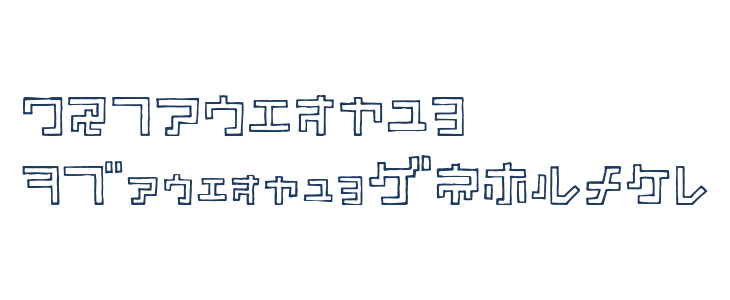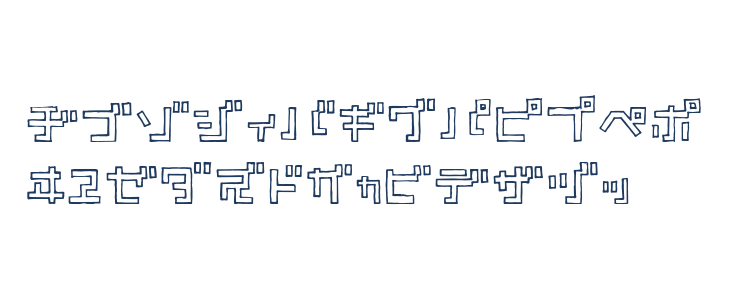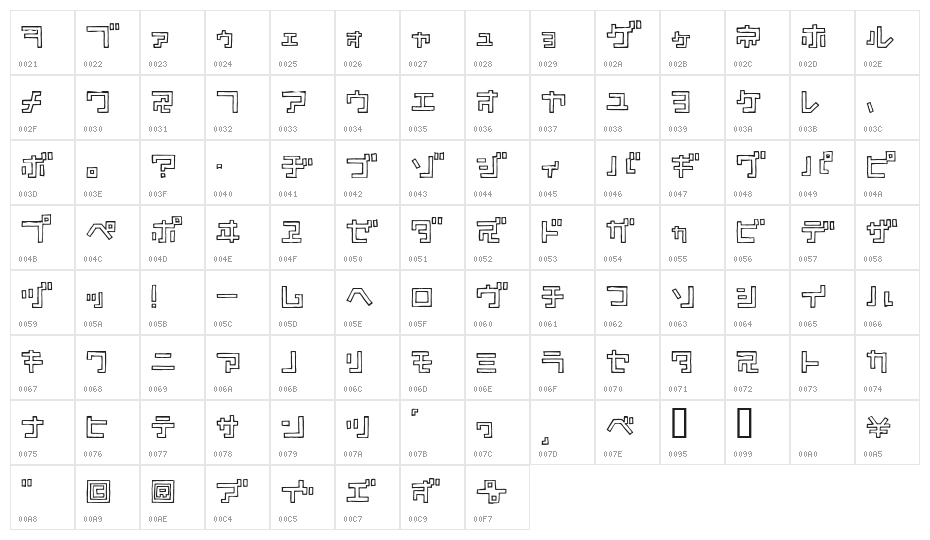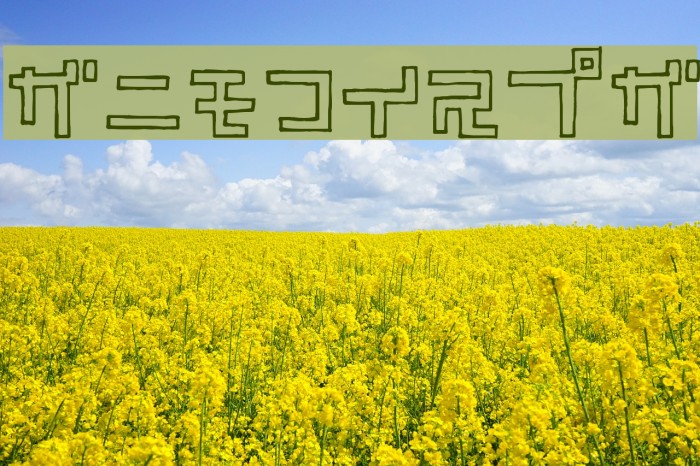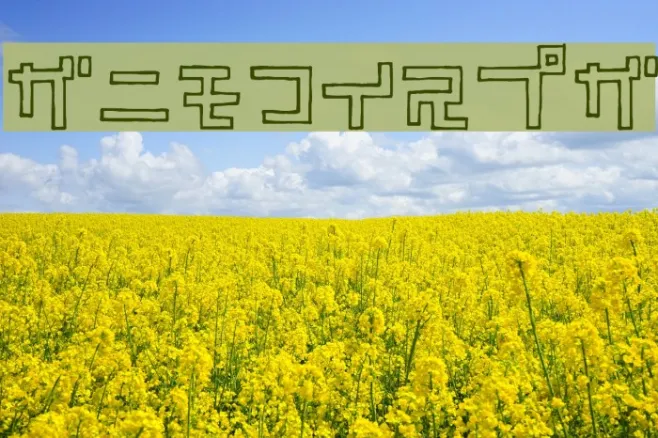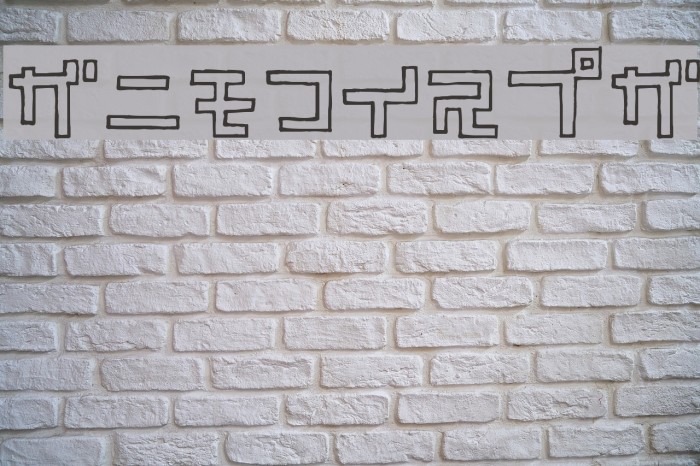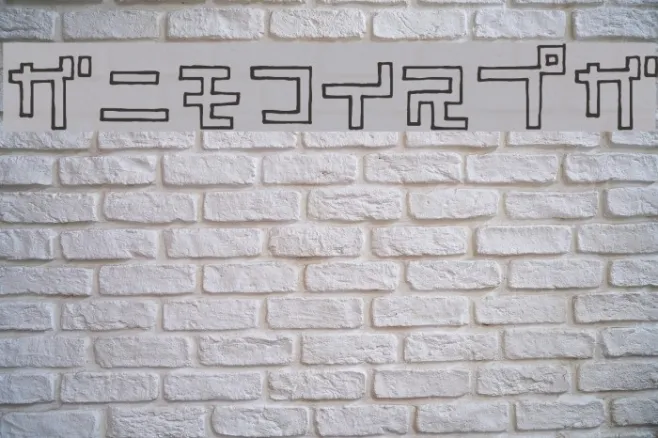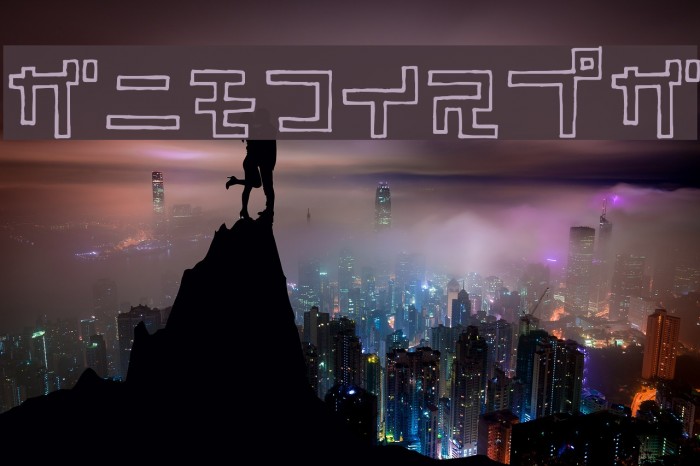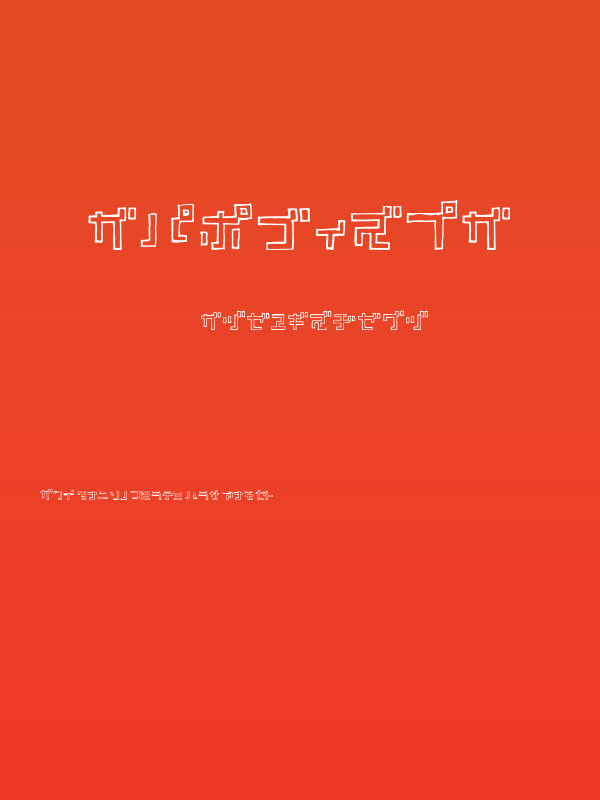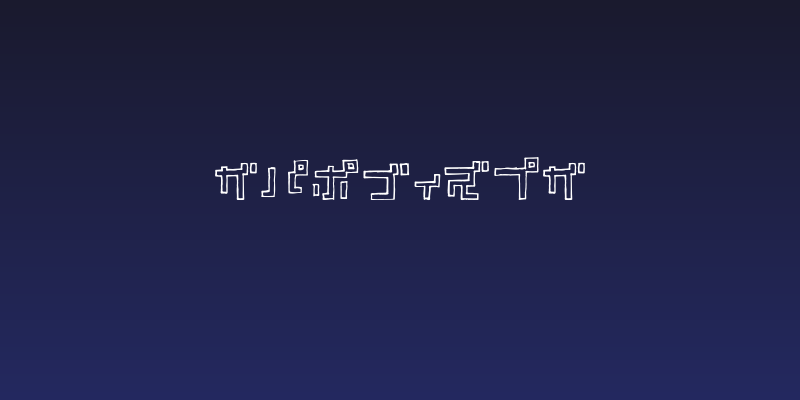
TimberKT Font
TimberKT Description
This font features a unique, geometric design with a playful and artistic flair. Each character is outlined with a bold, consistent stroke, creating a sense of uniformity while maintaining individuality in each letter's shape. The font has a hand-drawn appearance, giving it a casual and approachable feel. The characters are slightly angular, with a distinct blocky style that makes them stand out. This font is ideal for creative projects that require a touch of whimsy and originality. The spacing between characters is balanced, ensuring readability while preserving the font's artistic integrity.
| Use Case | Logos, Posters, Creative projects |
| Proposed Projects | Ideal for creative projects such as posters, children's books, and playful branding. |